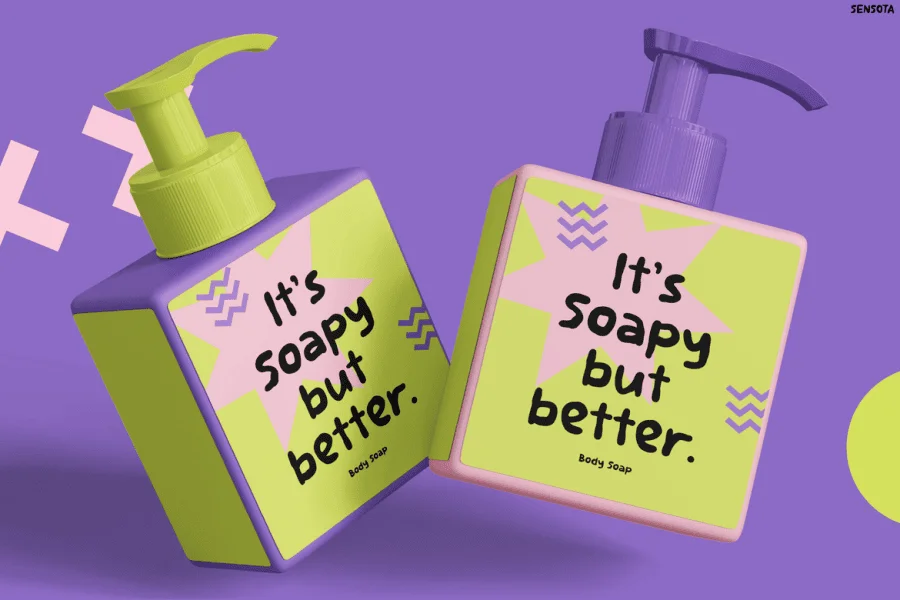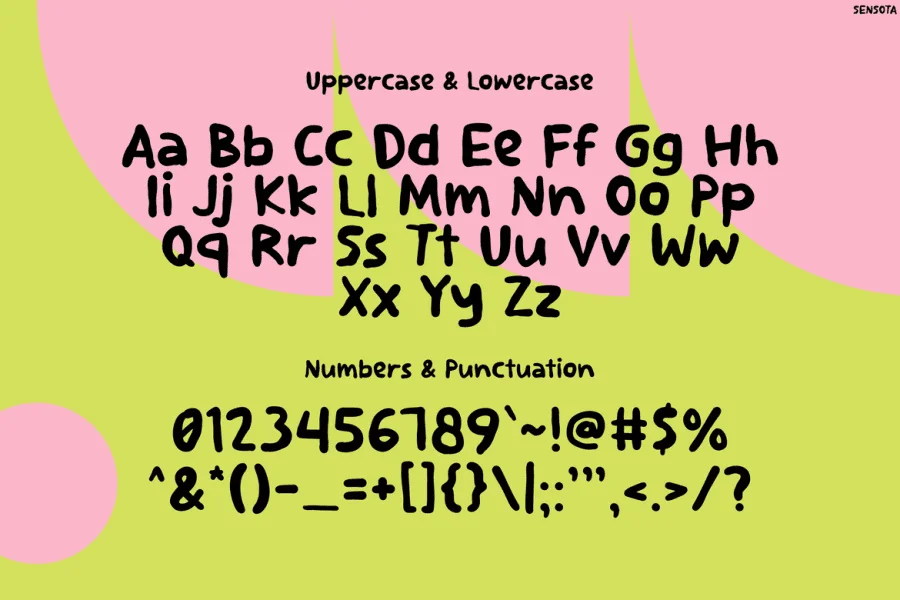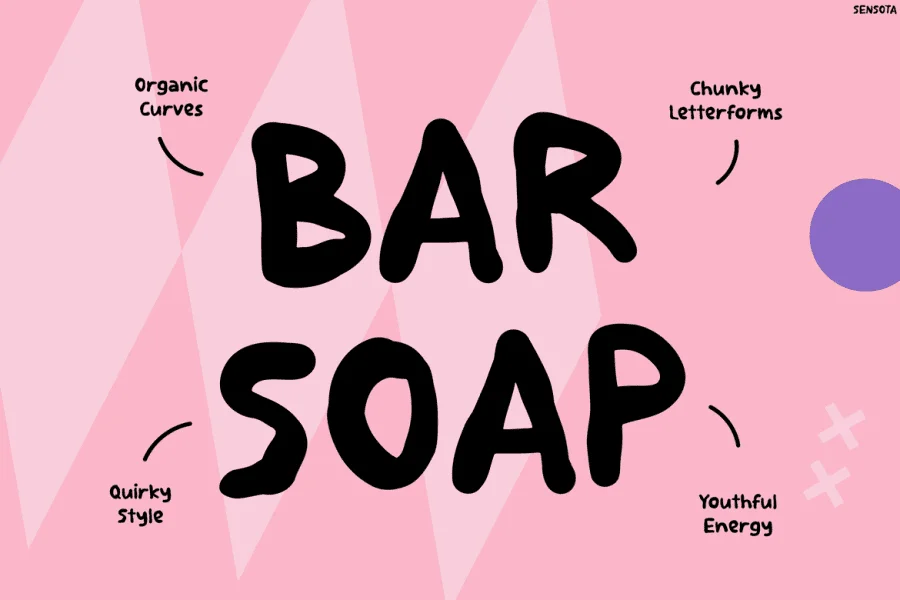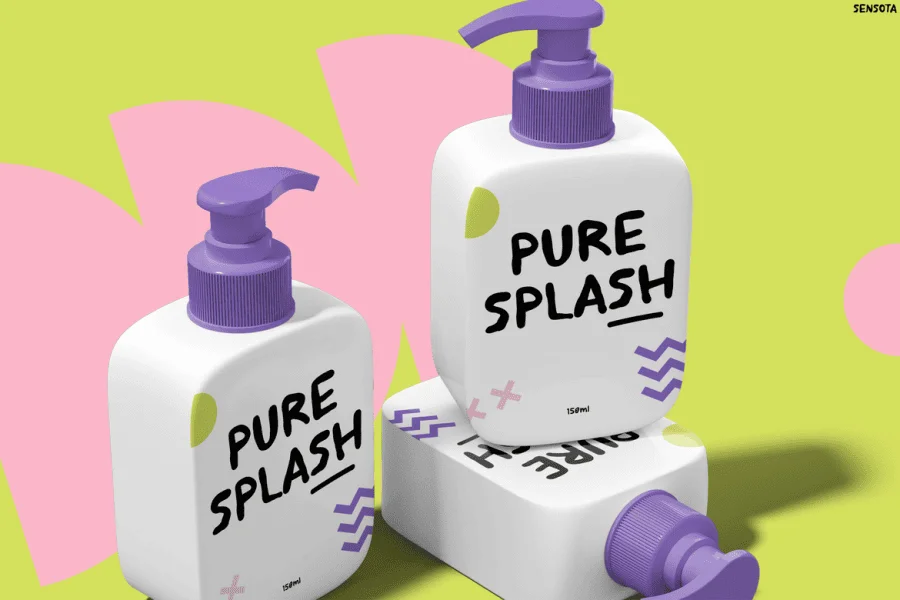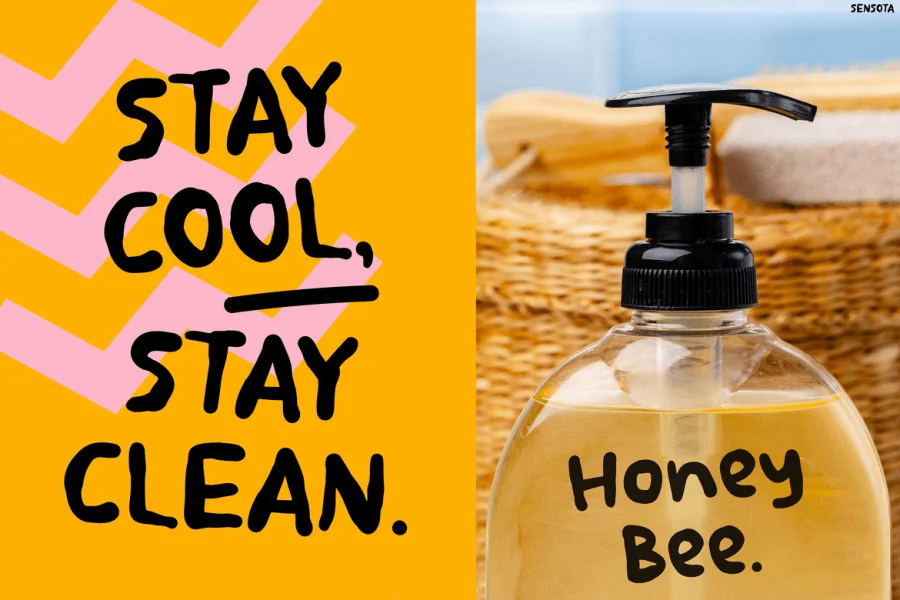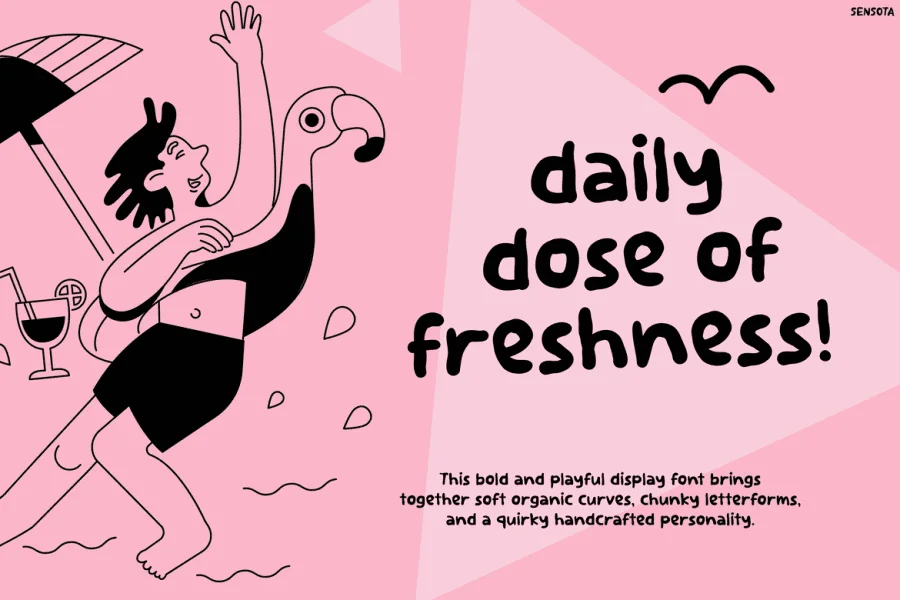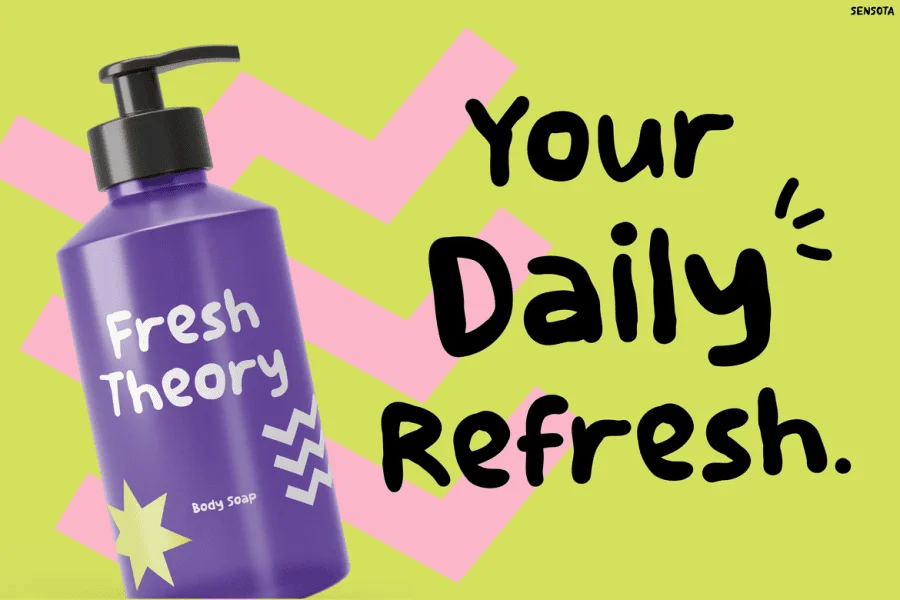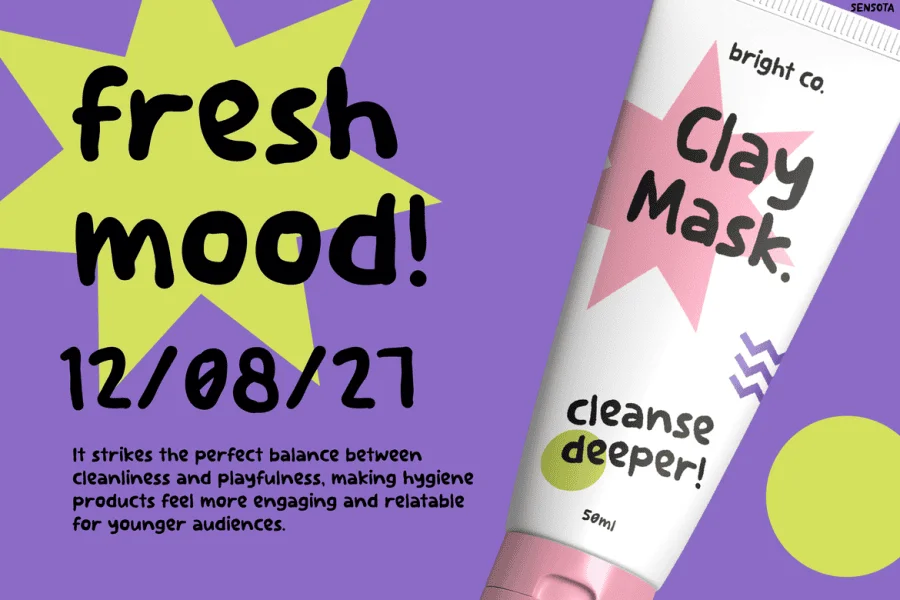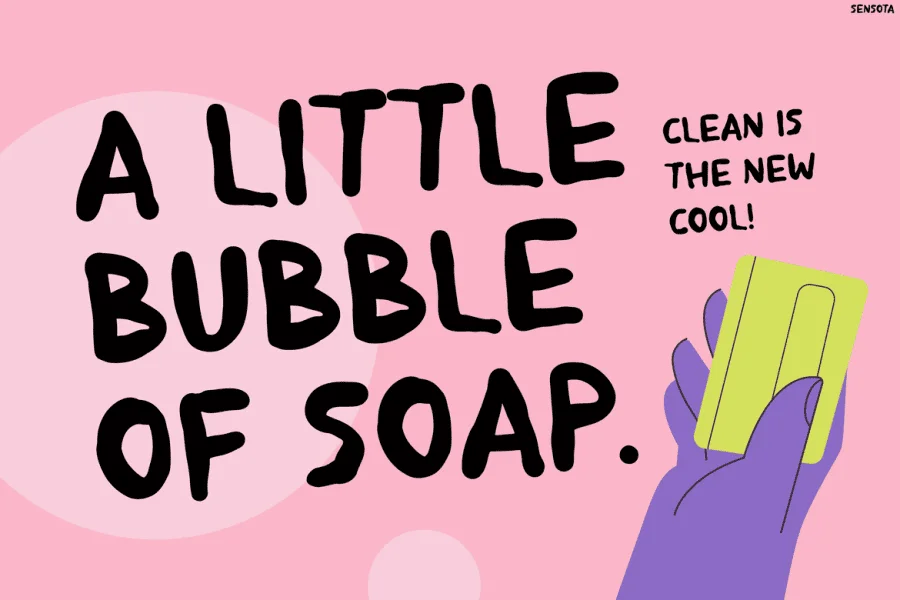
Sensota is a bold, handcrafted display typeface defined by its organic curves and chunky, low-contrast letterforms. It features an informal, hand-drawn aesthetic with soft, rounded terminals and a slightly uneven, humanistic rhythm. The characters carry a distinct visual weight that gives them a friendly and approachable presence, blending a casual sans-serif structure with a playful, hand-lettered energy.
This typeface is highly suited for vibrant packaging designs, particularly in the personal care, cosmetics, and beverage industries where a youthful and refreshing tone is desired. Its thick strokes and quirky personality make it an excellent choice for prominent display headlines, creative branding, and casual advertising campaigns that require an authentic, handmade touch.